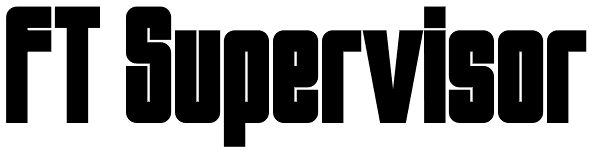
FT Supervisor
Supervisor is a compact and tough retro font. The font has small caps and plenty of automatic ligatures. Supervisor will rock your record covers and posters.
FT Supervisor Font